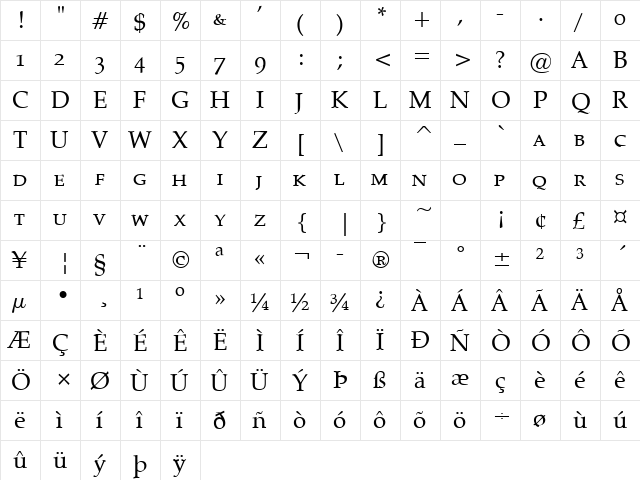
Pheasant Small Caps Normal
Design Context for Pheasant Small Caps Typeface
Pheasant Small Caps offers clean, dependable letterforms without strong stylistic allegiance, making it a practical choice for designers who need flexibility.
Pro Tip: Use Pheasant Small Caps in both headline and body roles to test its range before committing to a single application.